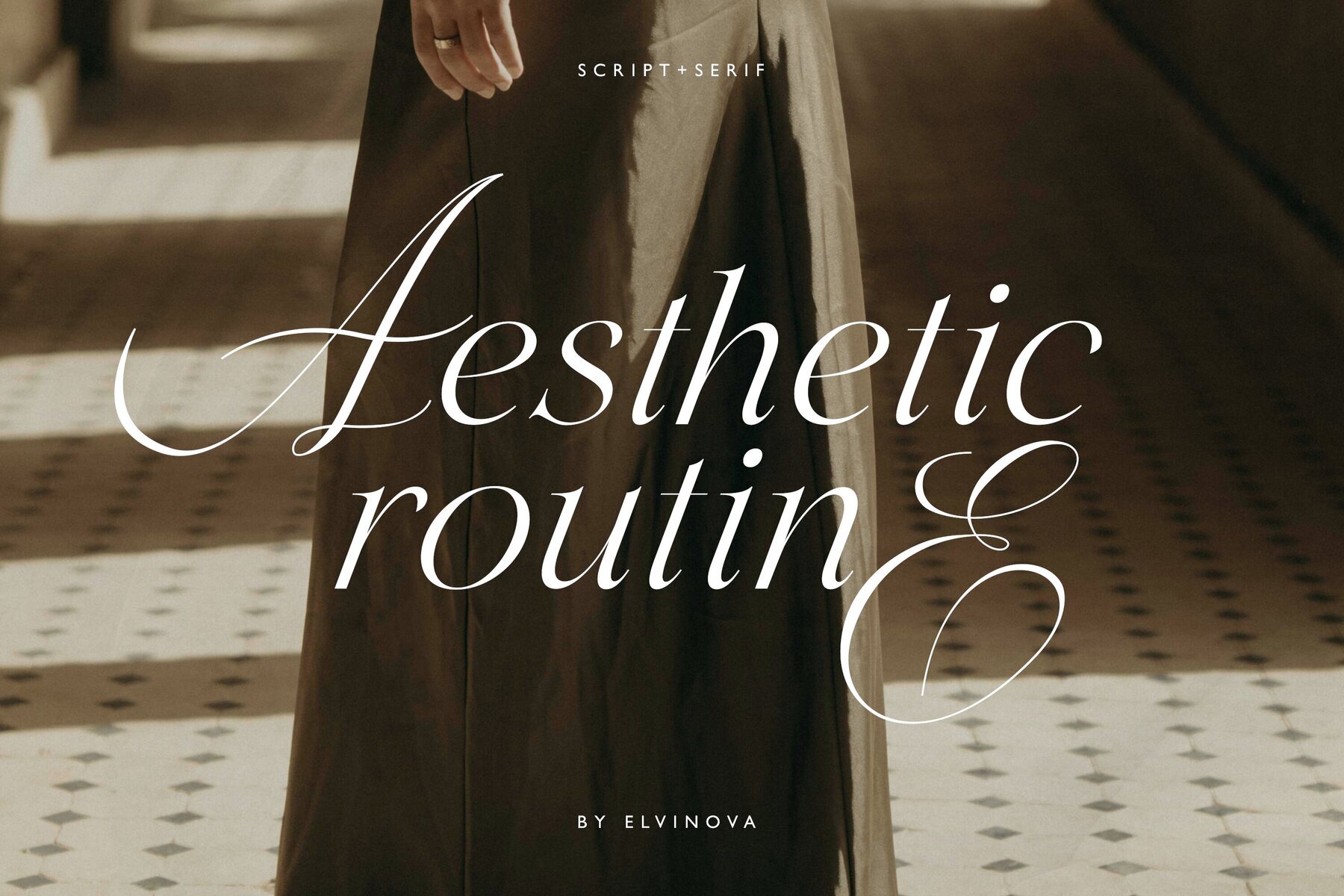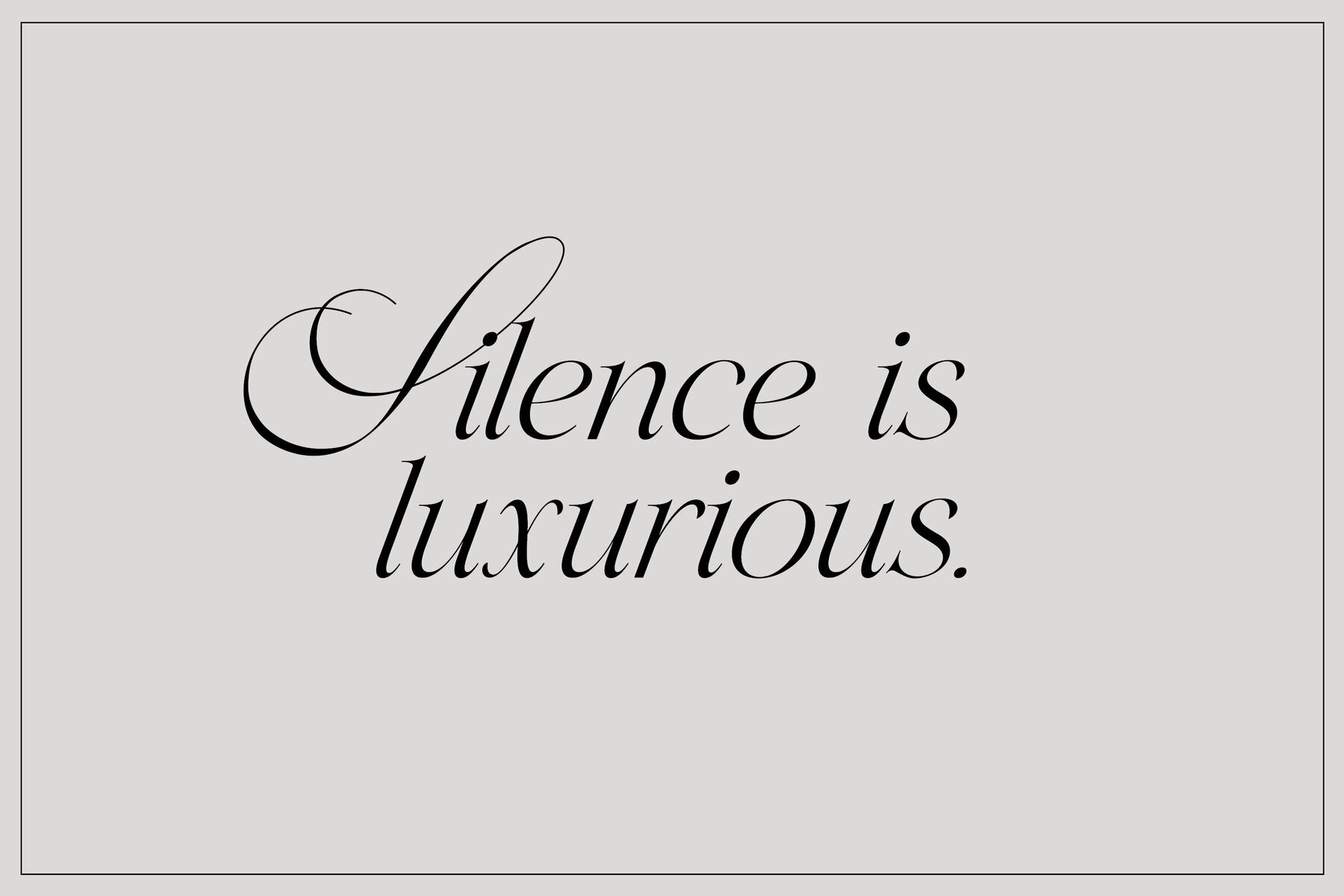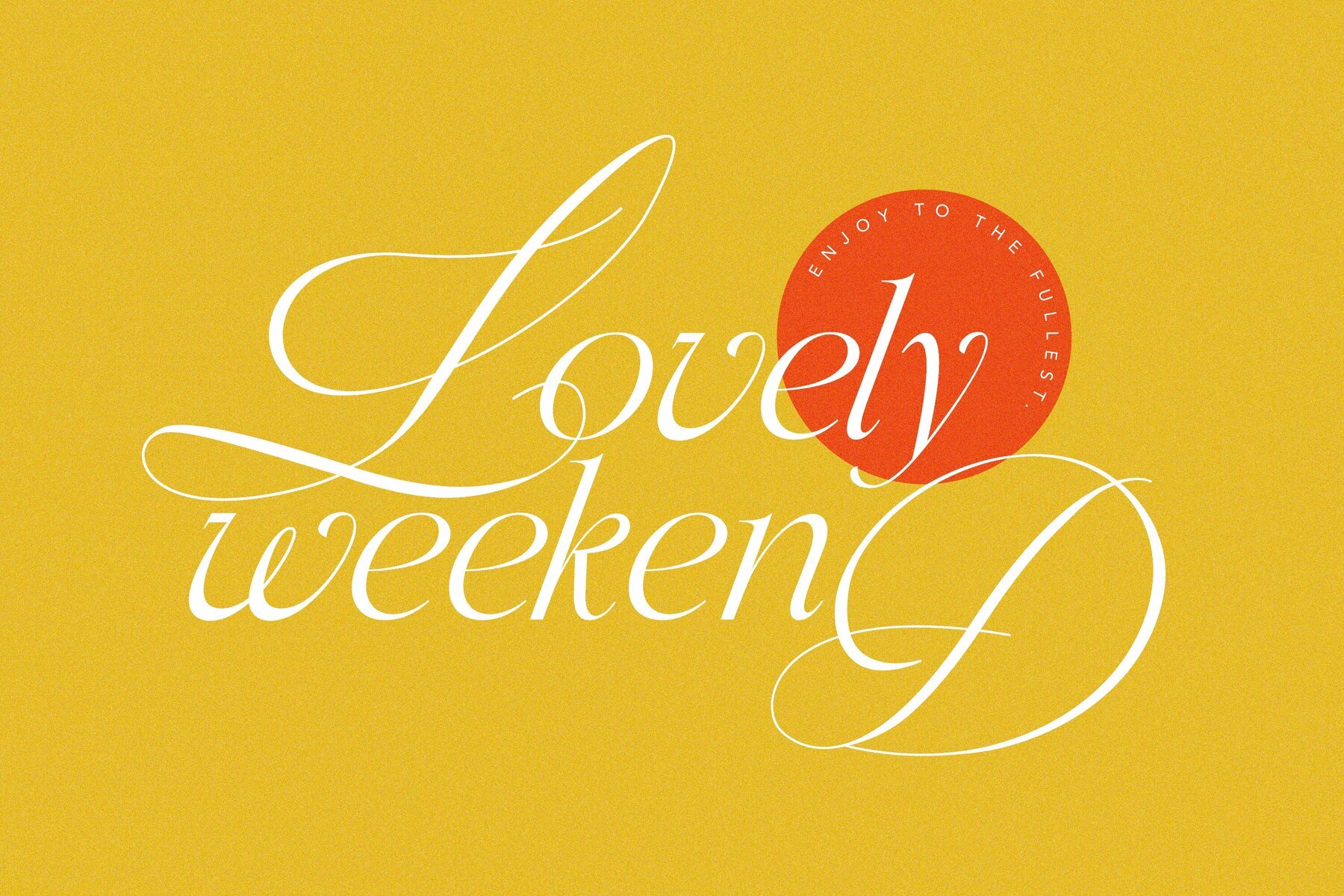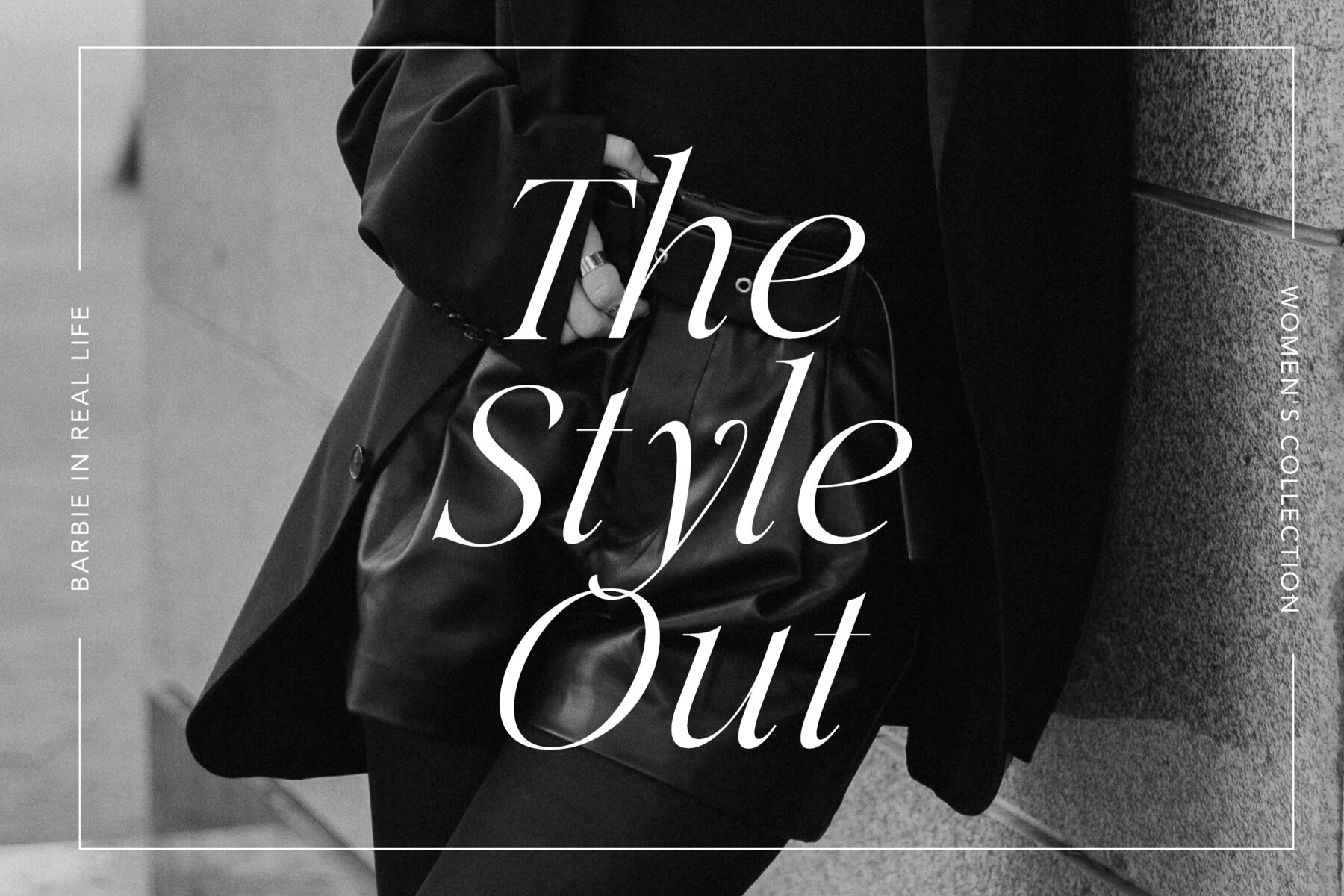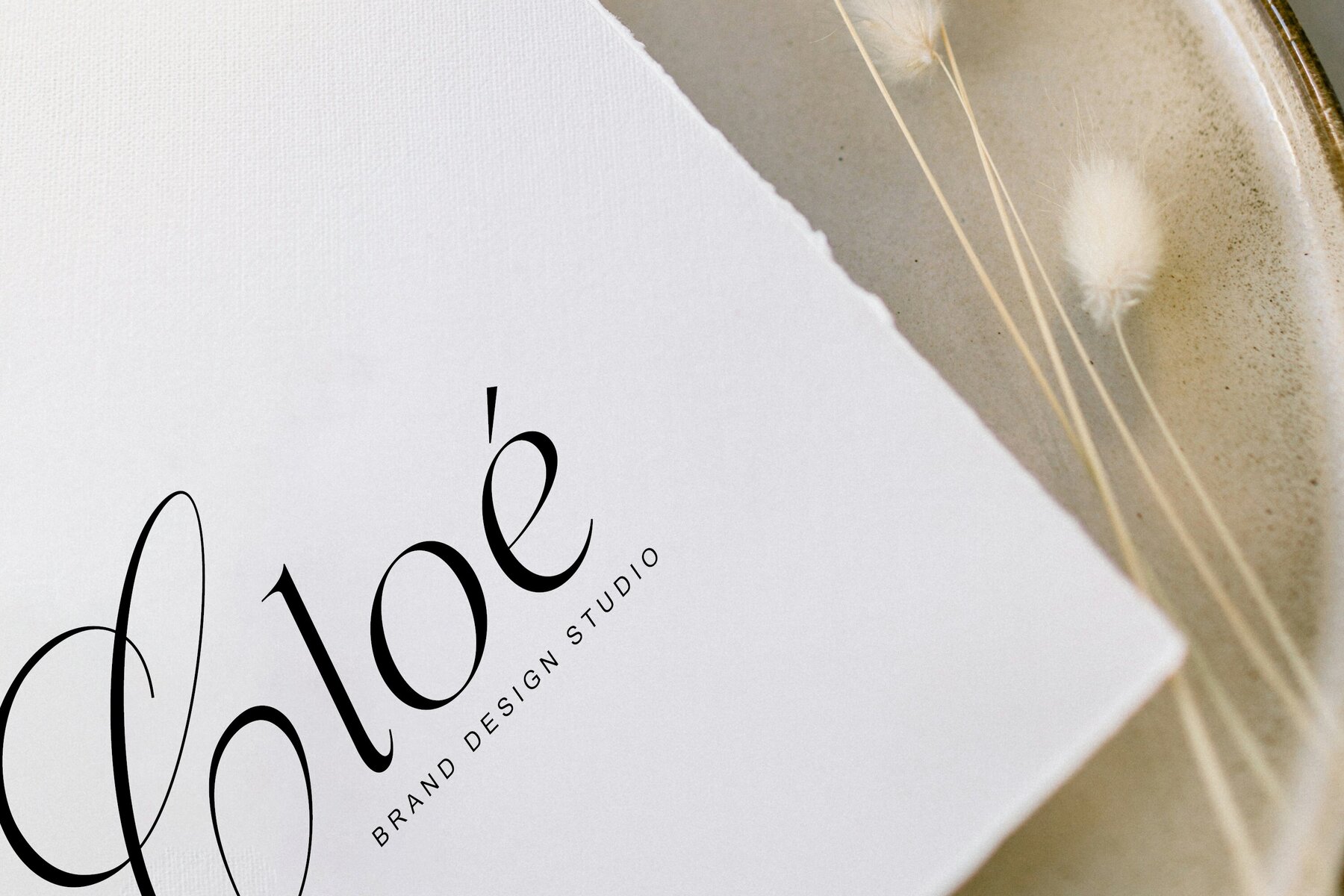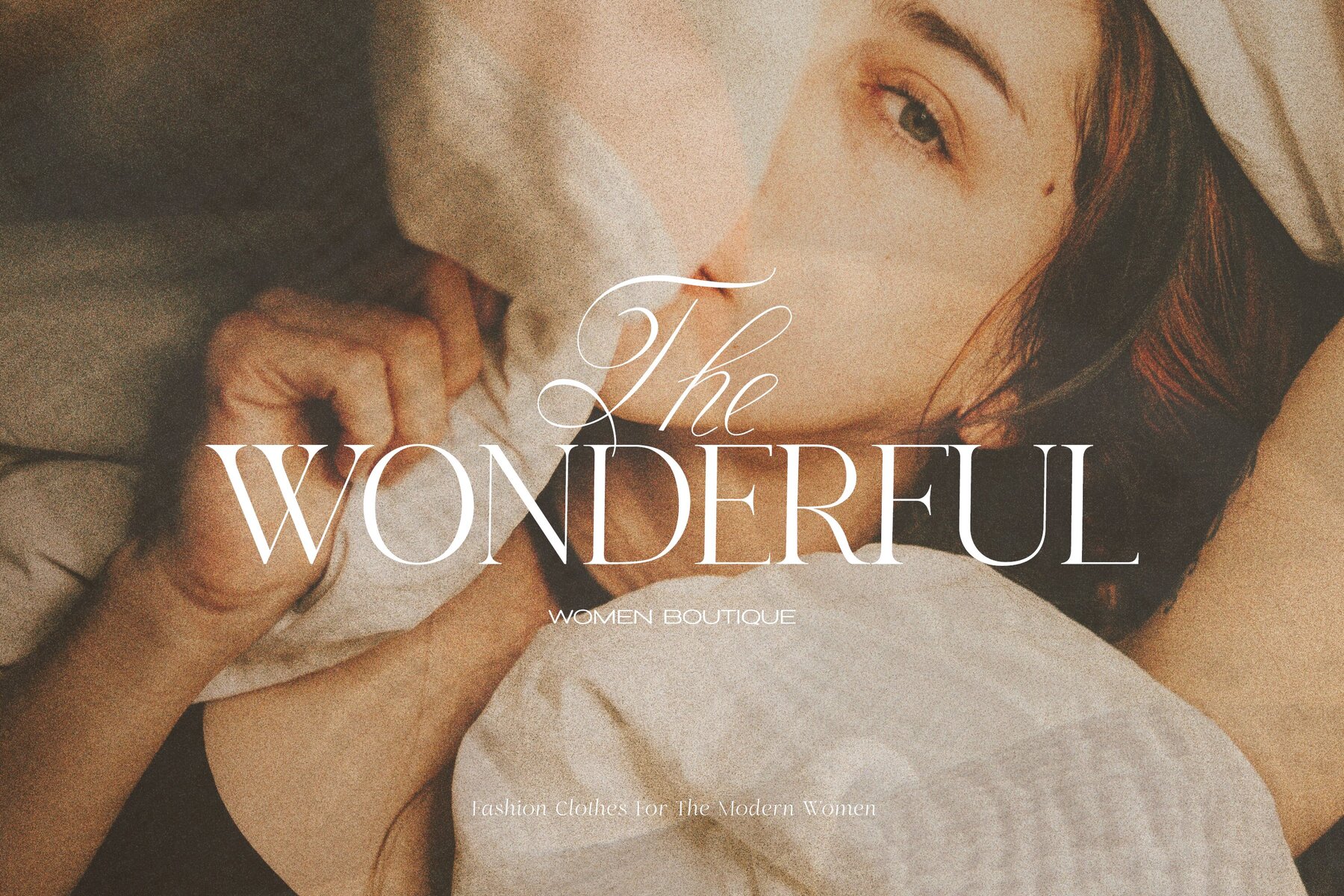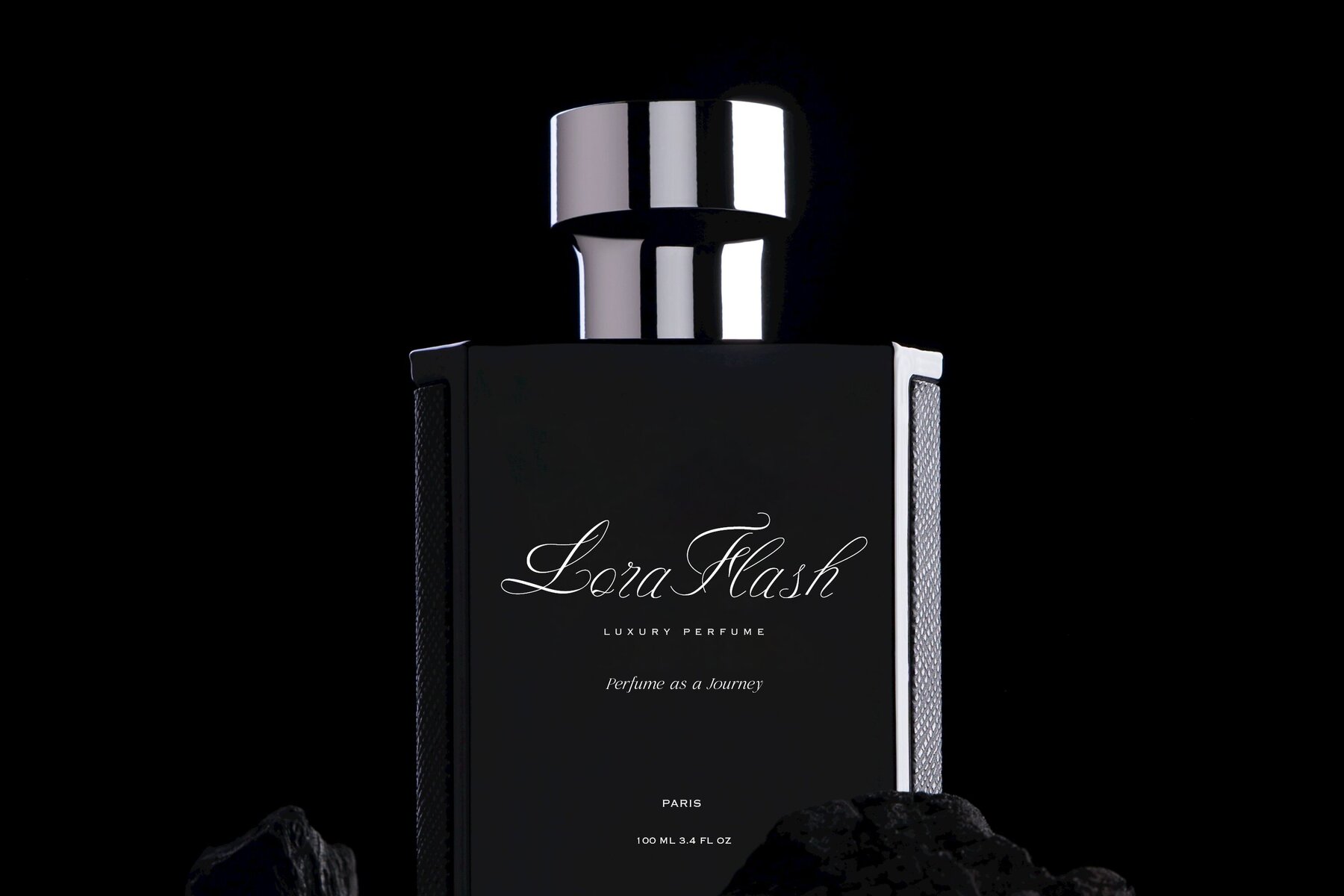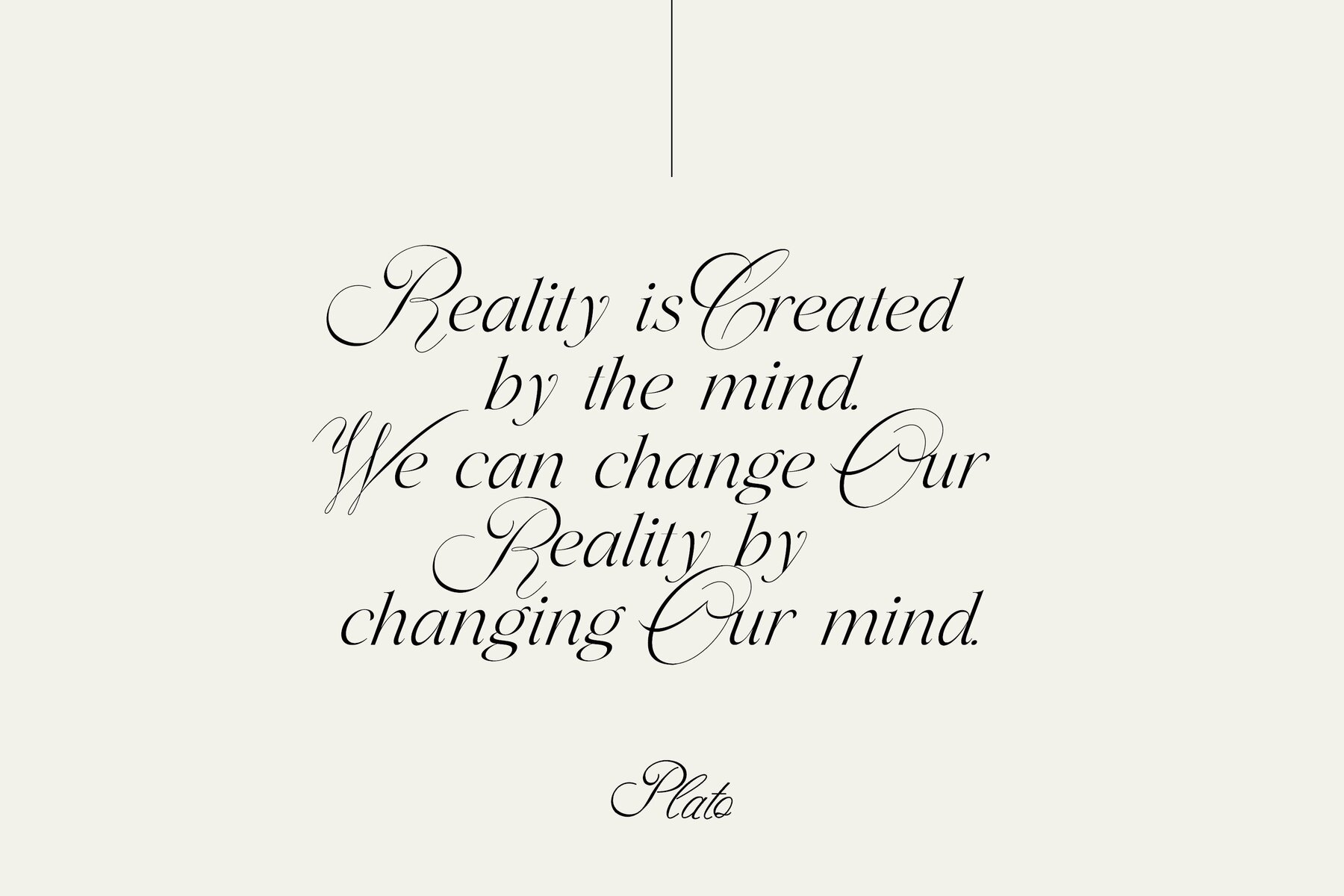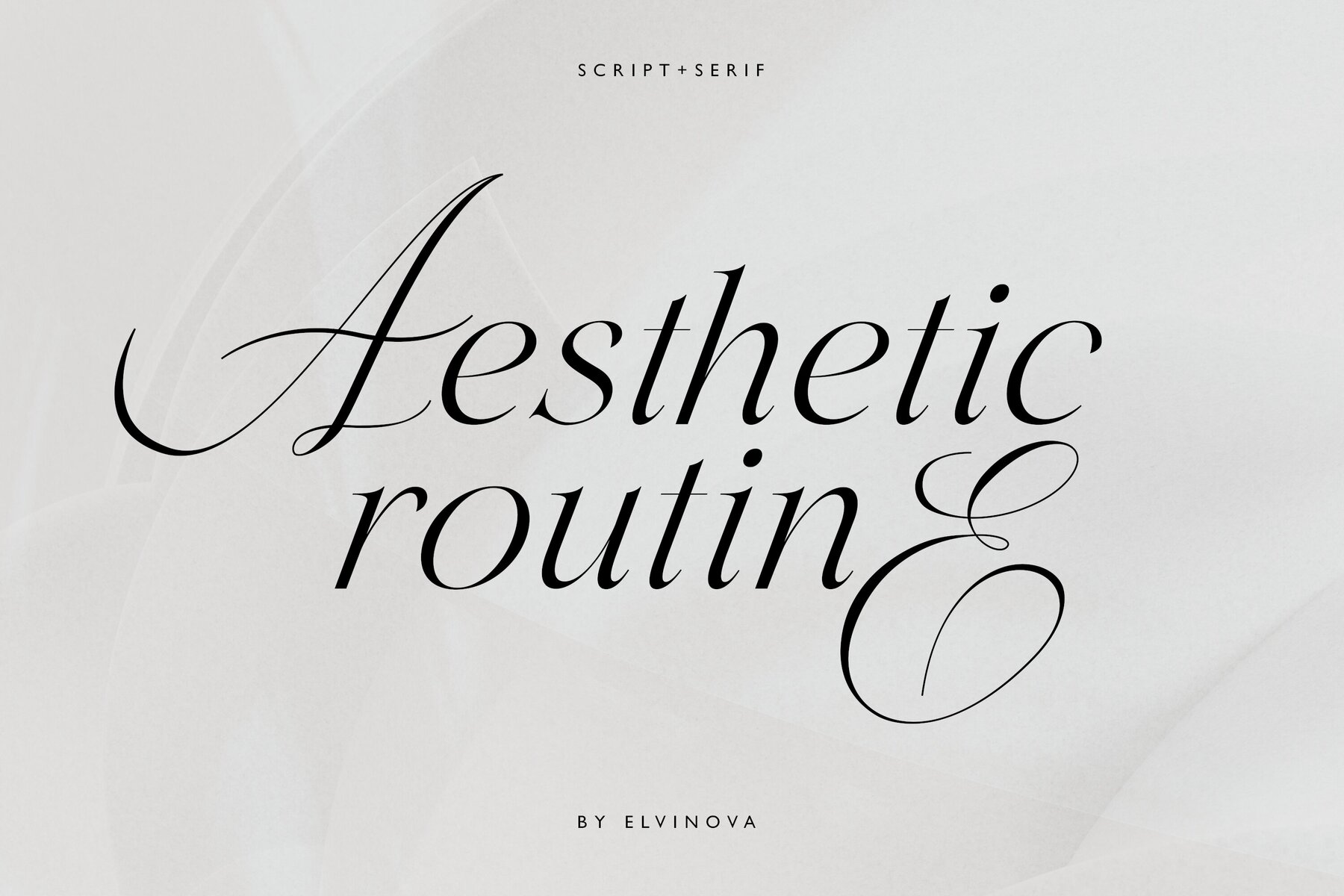
Aesthetic Font
Elevate your design projects with this elegant serif and script font duo. Perfectly blending the structured beauty of serif fonts with the expressive charm of script, this pair brings a sophisticated harmony to any formal print material. Ideal for crafting stunning wedding invitations, creating upscale brand identities, or designing captivating book covers, this font duo strikes the perfect balance between style and readability.
The font set includes both uppercase and lowercase letters, numbers, and punctuation marks, offering extensive typographic possibilities. It boasts language support for a wide range of European and global languages, such as English, German, French, Spanish, Italian, and many more, ensuring versatility in your creative endeavors.